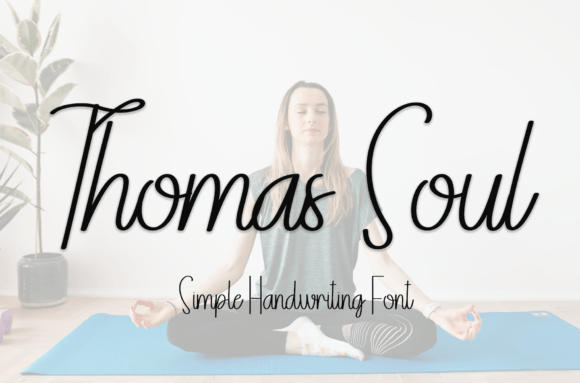
Introducing the perfect font for all your Christmas design needs - Thomas Soul Font! Created by the talented William Jhordy, this script font is the best choice for adding a touch of warmth and friendliness to your projects.
With its sweet and friendly handwritten style, Thomas Soul Font is perfect for creating wedding invitations, greeting cards, and any other designs that need a fun touch. This font is versatile and can be used for both personal and commercial projects, making it a must-have for designers and creatives alike.
What makes Thomas Soul Font stand out is its fresh and neat look that is both modern and timeless. The font's gentle curves and elegant strokes add a touch of sophistication to any design, while its playful personality injects a sense of joy and happiness.
So, why should you choose Thomas Soul Font? Because it's the perfect way to add a touch of personality and charm to your Christmas designs! Whether you're creating festive cards, invitations, or social media graphics, this font will make your designs stand out and grab attention.